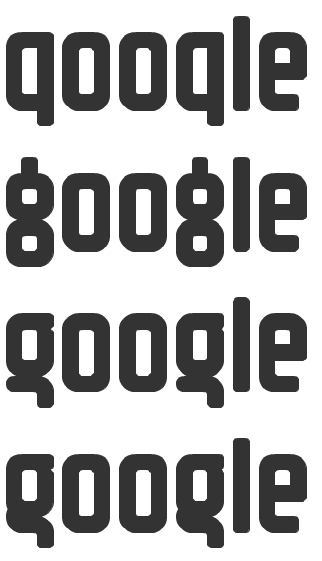
Good font, but the "a" looks a little bit like an "o".
Other than the 'g' and 'q' being identical, I really like this.
Also, consider thickening the 'z' diagonal a bit at the top. Not sure if it would work, but it might :-)
Any suggestions for q/g?
You could do a double storey g. Or q could be an o with a central decender (like a small cap Q).
A few suggestions for 'g' & one for 'z'.
Do you think that the middle stem of 'k' should be more centralised, like the 'x'?.
Also a suggestion for the dot above 'i' & 'j'.
(i actually like i j k how they are.)
Sorry, I can't help it. It's in my nature. Take from it what you will.
You did ask "any suggestions for q & g?"
Now I realise that you don't like it. I will refrain from assisting you.
Although I'm glad you changed the k & z.
I'm not feelin' the new 'g'. It doesn't seem to fit. It looks like a reversed "C4 Font" g.
Also in reference to i & j. I think without the dot, they are very minimal. Where as the rest of the font doesn't have the same vertical minimalism.
I'd like to see your uppercase. I think that's the real challenge.
Hey, I'm sorry! You don't have to "refrain from assisting" me just because I didn't follow your tip. I asked for suggestions, yes, but that's not a guarantee that I'll use them. If I don't use your suggestions,
1) that doesn't mean I don't like them, and
2) you can always clone any of my fonts and change them to how you like them.
And I DO like your g! I just don't quite think it fits this font. Neither does mine, of course, but I'm working on it. I'll change i j.
One possibility might be to leave g and q identical. They will still work in context, just like I and l in some sans fonts. Another solution could be to let the g extend more than the p and q. This would look OK because the g has a hook, which needs more descender space than a p or q, kind of like my f in Savant Garde.
that g is succulent!!